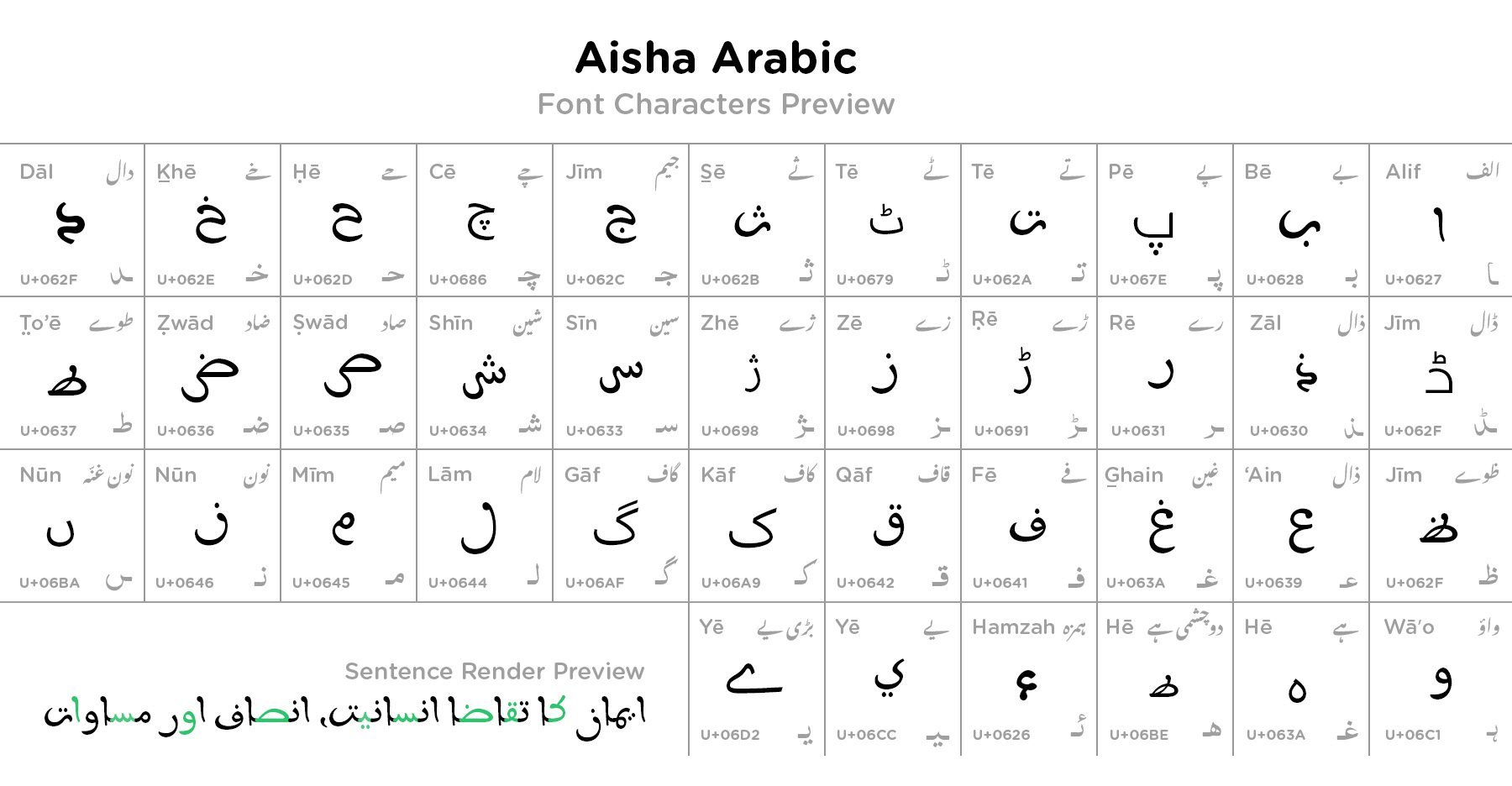
Aisha Arabic, a versatile typeface family released by TaType, TnTypography, and Rosetta, presents a creative and imaginative aesthetic. It was carefully designed by a font designer named Titus Nemeth. With 640 characters and 1068 glyphs, it offers comprehensive language support and typographic flexibility. Moreover, it supports Arabic, Latin, and Greek languages, offering broad typographic flexibility. The font’s uniqueness lies in its ability to convey a sense of creativity and innovation while maintaining readability. It is available in four different weights, catering to diverse design needs of designers. These weights may include:
- Aisha Arabic Semibold
- Aisha Arabic Regular
- Aisha Arabic Extrabold
- Aisha Arabic Bold
This typeface is perfect to cater to diverse design requirements, from editorial layouts to branding and packaging. Each weight offers a distinct personality, allowing designers to express a wide range of emotions and messages. Aisha Arabic’s characters exhibit a dynamic feel, with thickness changing throughout the letterform, adding depth and visual interest. Whether used for headlines, subheadings, branding materials, or editorial design, it stands out as a versatile and expressive typeface, offering designers the tools to create captivating and impactful visuals across various media platforms. Moreover, it offers broad language support and compatibility with diverse text encoding standards, including Basic Latin, Latin-1 Supplement, Latin Extended-A, Arabic, General Punctuation, and more.